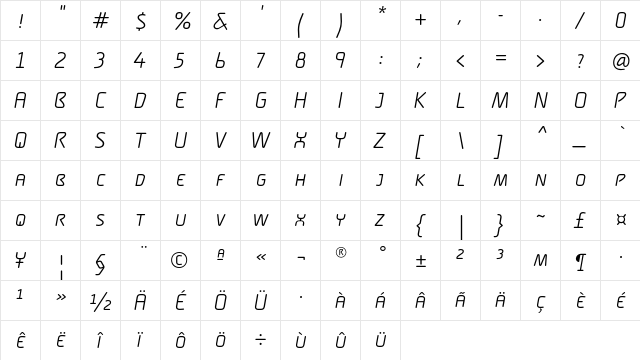
AlegaGreek-LightSCItalic Regular Font Preview
| Foundry | Siegfried Rueckel, published by FontShop International for the FontFont library |
Design Context for AlegaGreek-LightSCItalic Typeface
AlegaGreek-LightSCItalic offers clean, dependable letterforms without strong stylistic allegiance, making it a practical choice for designers who need flexibility. The slanted form adds forward momentum and visual energy. Its slender proportions lend an understated elegance to any composition.
Pro Tip: Try AlegaGreek-LightSCItalic for annotation and caption copy alongside an upright companion — the contrast in angle creates a dynamic but ordered typographic system.